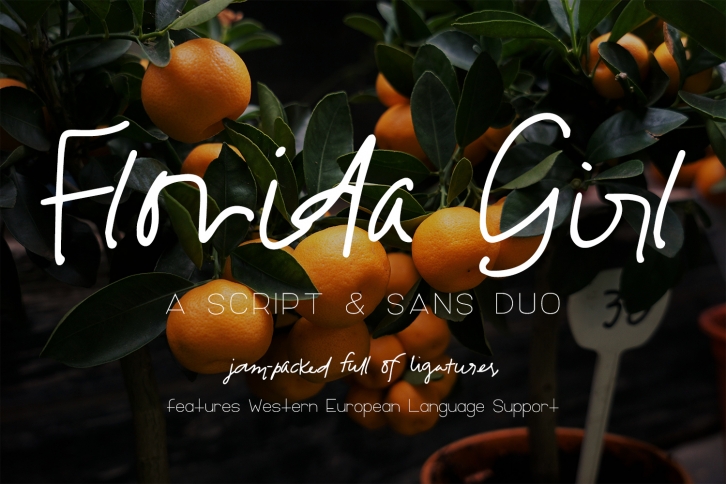
Florida Girl Script is a handwritten font — casual & quick. Packed full of ligatures for common letter combinations, it enables the user to have a scrawled look with natural breaks in letters & words, mimicking the look of handwriting & lifting a pen while writing. Paired with the more structured, clean Florida Girl Sans, this duo packs a punch for modern branding with an edge, posters, & website design.
This font include Western European language support for the following characters: AÀÃÂÃÄÅCÇDÃEÈÉÊËIÃŒÃÃŽÃNÑOØÒÓÔÕÖUÙÜÚÛWẂŴẄẀYßỲŸÆŒßÞþ